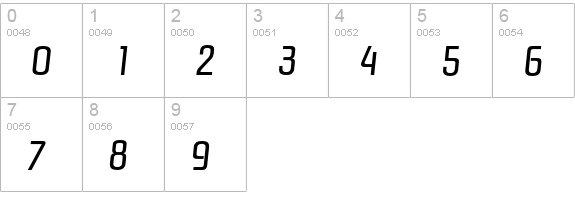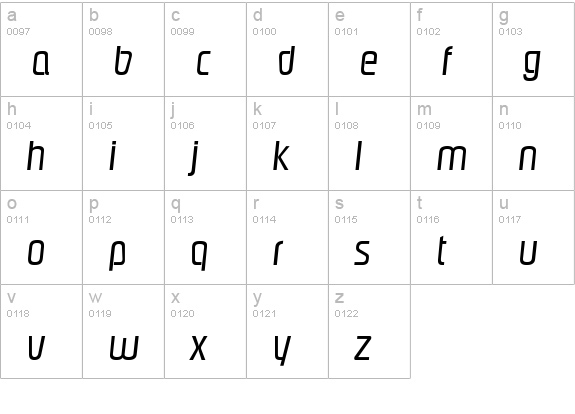
Pasadena-RegularIta Font Details
Pasadena-RegularIta font is a beautifully designed typeface that exudes elegance and sophistication. With its sleek and slender letterforms, this font brings a touch of modernity to any design project. The italicized style adds a sense of dynamism and movement, making it perfect for conveying a sense of energy and excitement. What sets Pasadena-RegularIta font apart is not only its stunning aesthetics but also the fact that it is available for free. That's right, you can freely download this font at FontsMarket.com, making it accessible to designers, creatives, and enthusiasts alike. Whether you're working on a branding project, advertising campaign, or simply looking to add a touch of style to your personal creations, Pasadena-RegularIta font is a versatile choice. Its legibility and unique character make it suitable for various design applications, ensuring that your message is delivered with clarity and impact. The smooth curves and balanced proportions of Pasadena-RegularIta font create a harmonious visual experience, making it a pleasure to read and use. Its versatility extends to different sizes and mediums, ensuring that it looks equally stunning on both digital and print platforms. Whether you're designing a logo, a website, a poster, or any other creative project, Pasadena-RegularIta font is a reliable choice that effortlessly combines modernity with timeless appeal. It adds a touch of sophistication to any design, elevating it to new heights. So, why wait? Download Pasadena-RegularIta font for free at FontsMarket.com and unlock endless possibilities for your design endeavors. Let this font be the perfect companion to your creativity, allowing you to bring your visions to life with style, elegance, and impact.